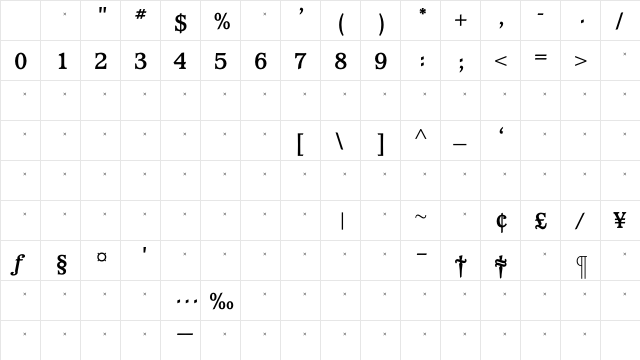
WaverlyBoldTab is a composed and adaptable typeface that performs quietly and consistently across a wide range of design contexts. Its bold stroke weight gives it real presence on the page.